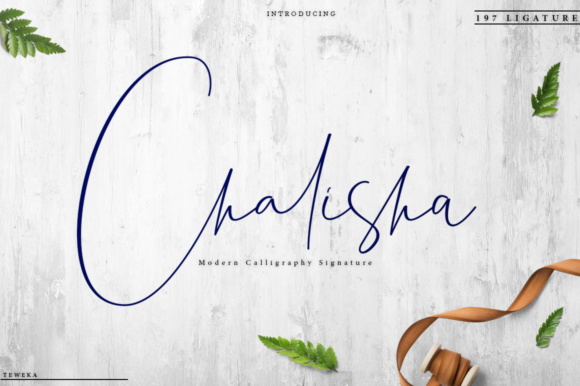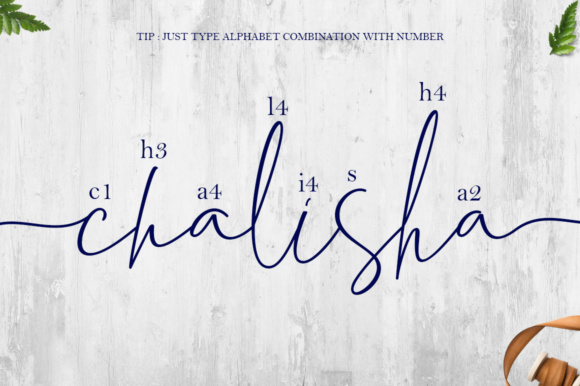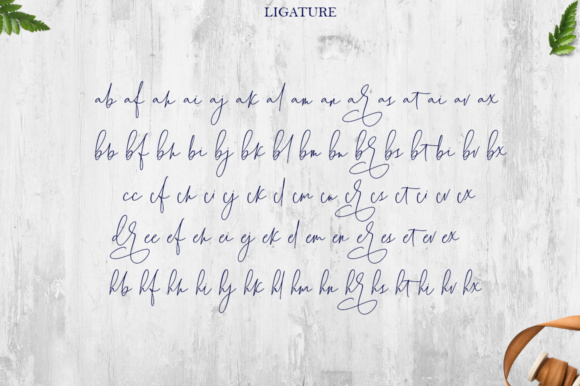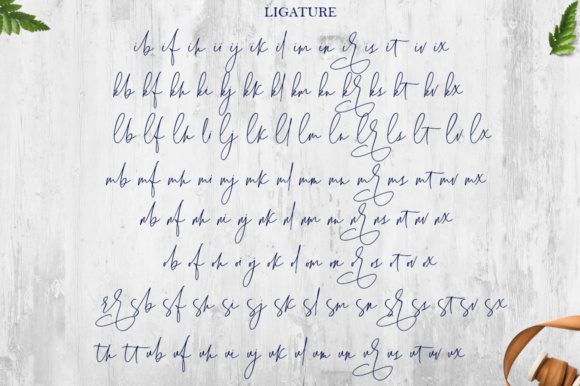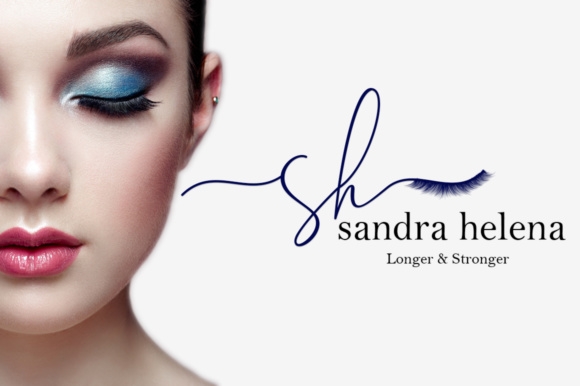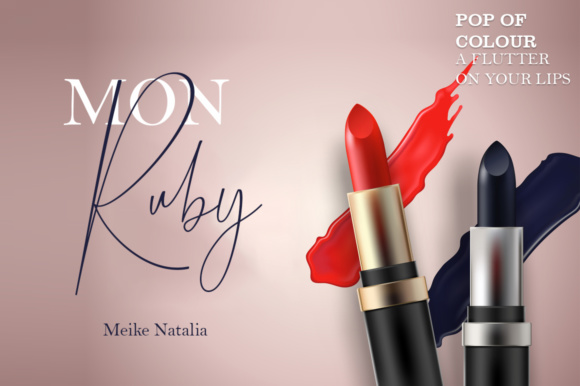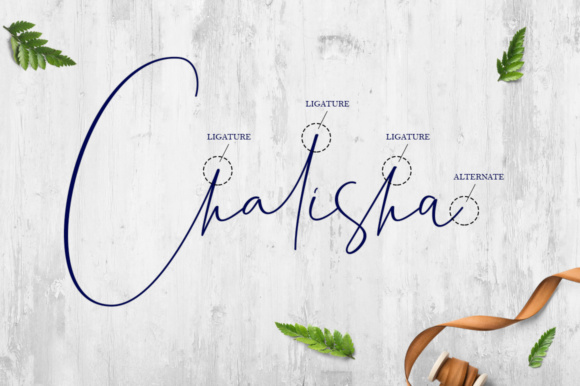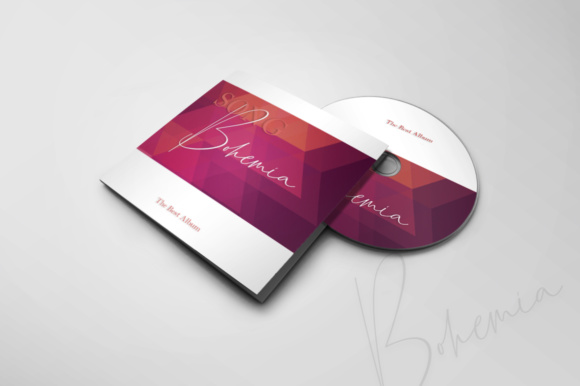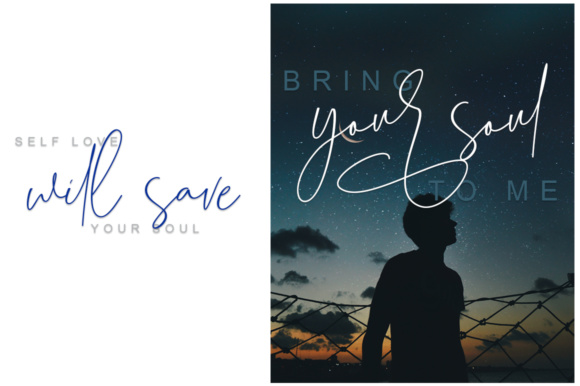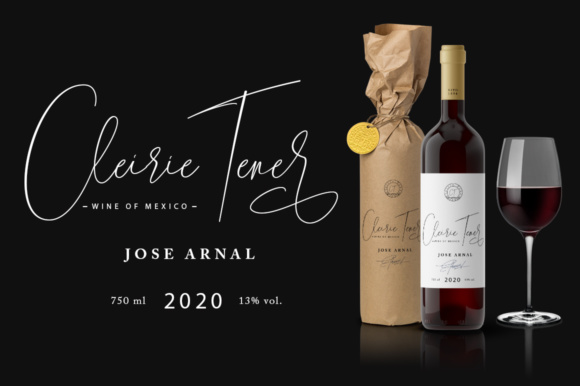
HomeScript FontsChalisha Font Script Fonts Chalisha Font FacebookXPinterestWhatsApp Chalisha Font Poster 2 Chalisha Font Poster 3 Chalisha Font Poster 4 Chalisha Font Poster 5 Chalisha Font Poster 6 Chalisha Font Poster 7 Chalisha Font Poster 8 Chalisha Font Poster 9 Chalisha Font Poster 10 Chalisha Font Poster 11 Chalisha Font Poster 12 About Chalisha Font The Chalisha is an elegant signature font. It’s perfect for adding a personal touch to your designs! DOWNLOAD ON CREATIVE FABRICAThis font is sold and delivered by Creative Fabrica. Font Canyon may earn a commission if you buy through this link. People also explored Santina Font Maryellen Font Sunday Font Brondong Font Chilling Saturday Font Cogan Font Andini Font Adara Font Gohan Font 287 0 TagsChalisha Font Previous articleEmilly Stories FontNext articleRups Script Font LEAVE A REPLY Cancel reply Comment: Please enter your comment! Name:* Please enter your name here Email:* You have entered an incorrect email address! Please enter your email address here Website: Save my name, email, and website in this browser for the next time I comment. Personal Use Free Sileighty Personal Use Free Read more about this font Pasile Personal Use Free Read more about this font Peristiwa Font Personal Use Free Read more about this font Kellana Personal Use Free Read more about this font BLOG Top 7 Google Fonts Alternatives for Faster and Privacy-Friendly Web Design (2025) Top 7 Google Fonts Alternatives for Faster and Privacy-Friendly Web Design (2025) When it comes to web typography, Google Fonts has long been the go-to... 5 Fonts That Will Dominate Design Trends in 2026 Free Fonts Risk: Why Free Fonts Can Be Dangerous for Designers Best Fonts for YouTube Videos: Make Your Thumbnails Stand Out